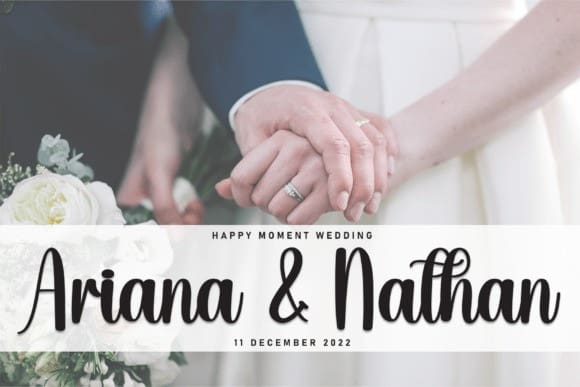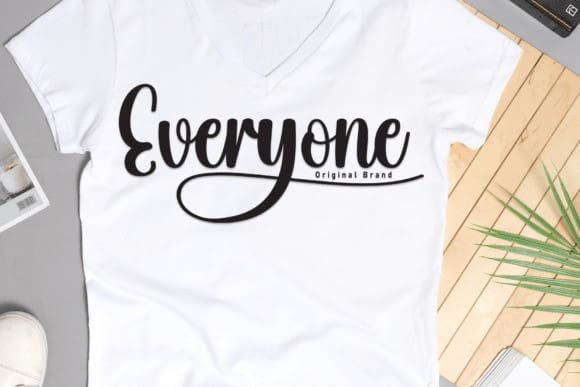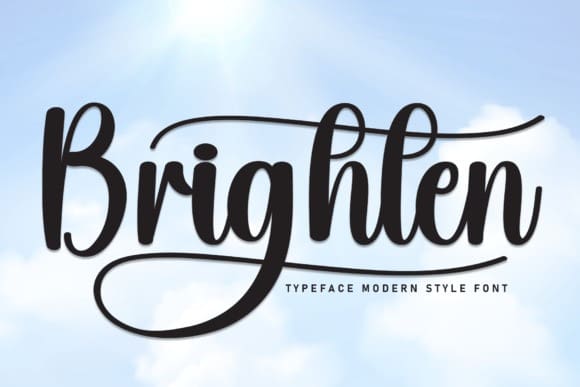
Brighten Script Font
Brighten Script Font is an elegant modern script font that combines sophistication with a touch of whimsy. Its flowing lines and graceful curves create a dynamic rhythm, perfect for adding a stylish flair to invitations, logos, and creative projects. The font features a delightful set of flourish alternates that add an extra layer of charm and versatility to your designs, making it a delightful choice for those seeking a balance between contemporary and decorative aesthetics.